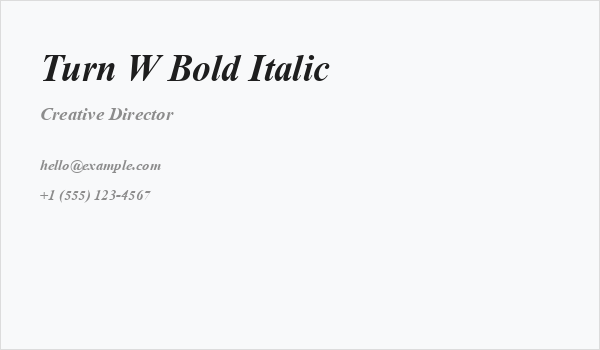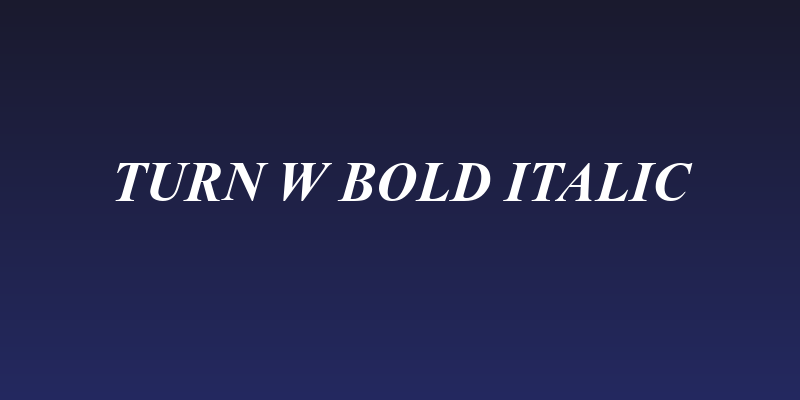
Turn W Bold Italic Font
Turn W Bold Italic Description
This font exhibits a bold and italicized style, characterized by its strong and dynamic presence. The uppercase and lowercase letters are elegantly slanted, giving a sense of movement and sophistication. The numerals are equally bold, maintaining the italicized slant, which adds to the cohesive look of the font. The special characters are designed to match the overall bold and italic aesthetic, ensuring consistency across all glyphs. This font's design is both classic and modern, making it versatile for various applications.